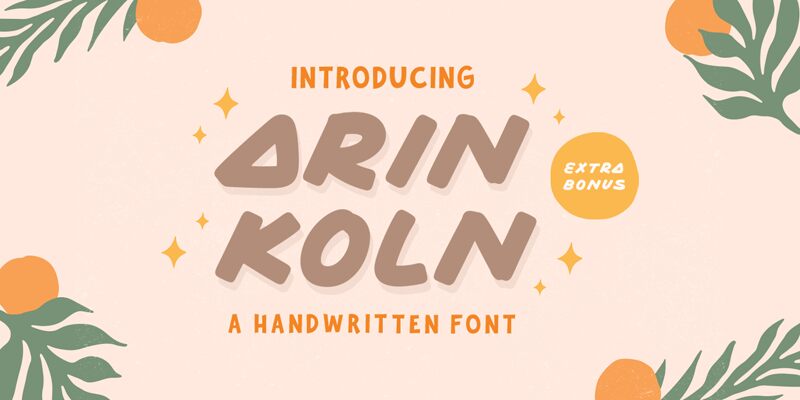
ArinkolnDemo
Arinkoln by Letterhend Studio is a bold and expressive handwritten font that adds a touch of personality to any project. Its semi-expanded width makes it perfect for titles and headlines, while the bold weight ensures readability on smaller sizes. Arinkoln's unique style gives any design an organic and authentic feel, making it a great choice for branding, packaging, invitations, social media graphics, and more. With its playful yet sophisticated look, Arinkoln is sure to make your message stand out in a crowd.